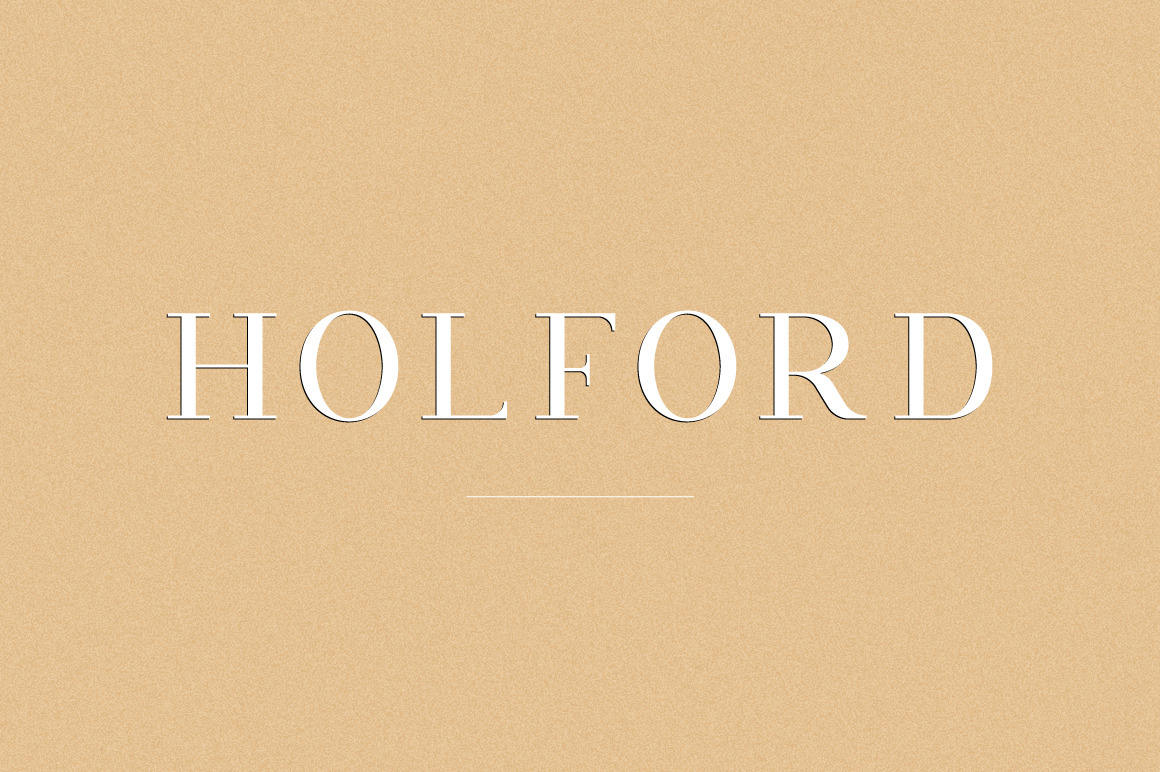
Holford - Elegant Serif Font
Introducing Holford, a versatile elegant serif font. This clean font features thin serifs and multilingual characters and is perfect for creating classy designs including logos & branding, packaging design, apparel and of course much more!